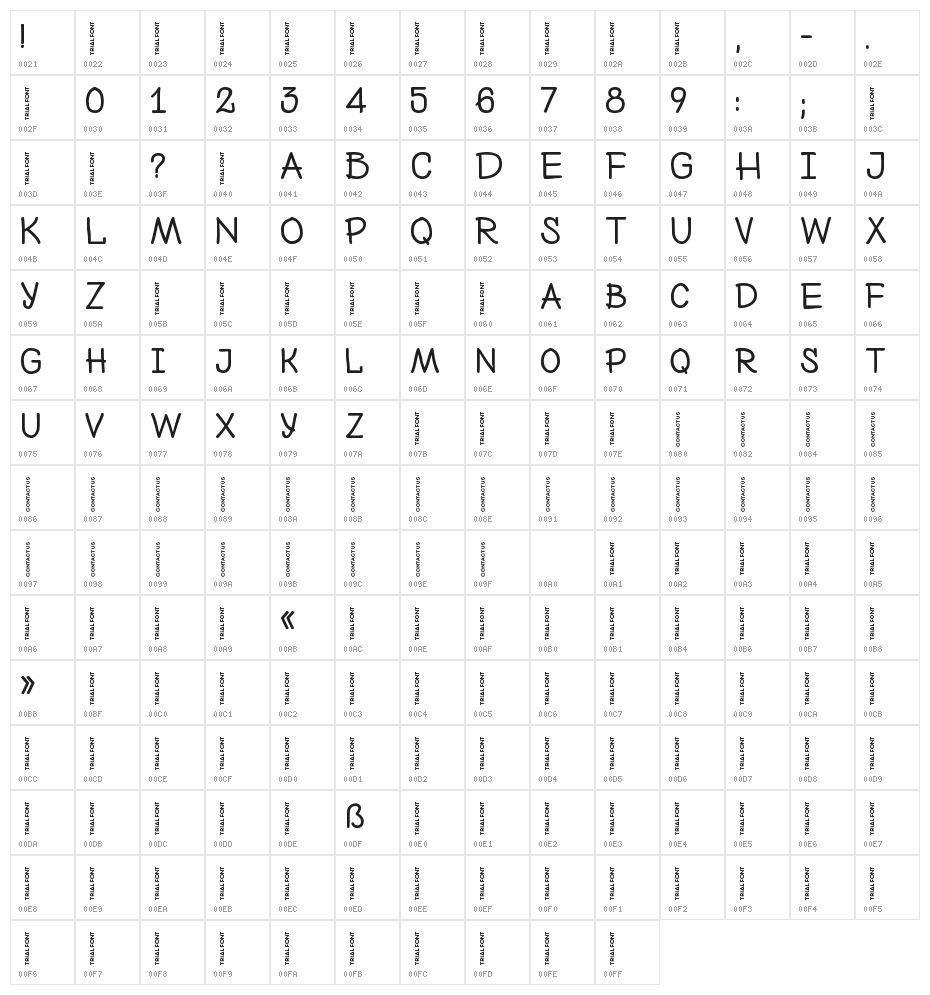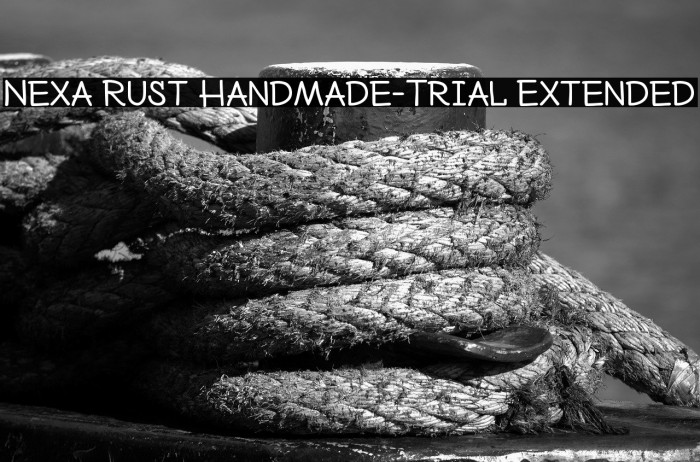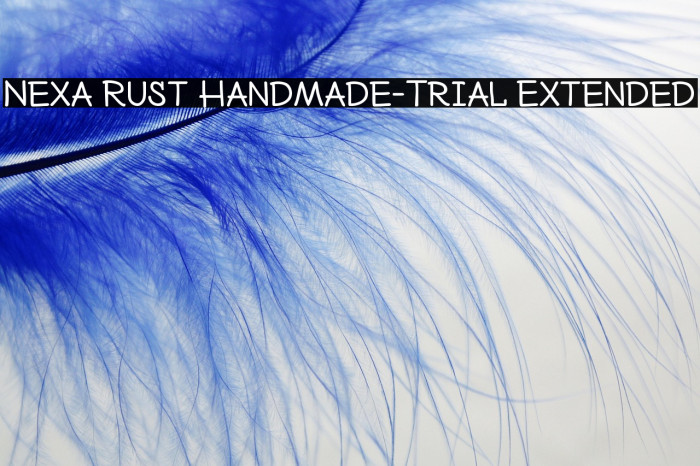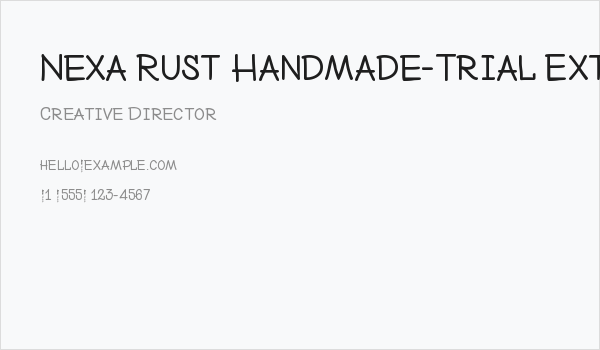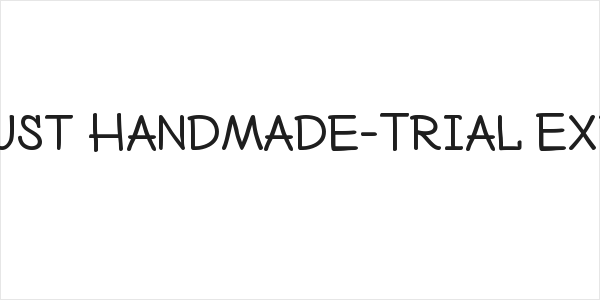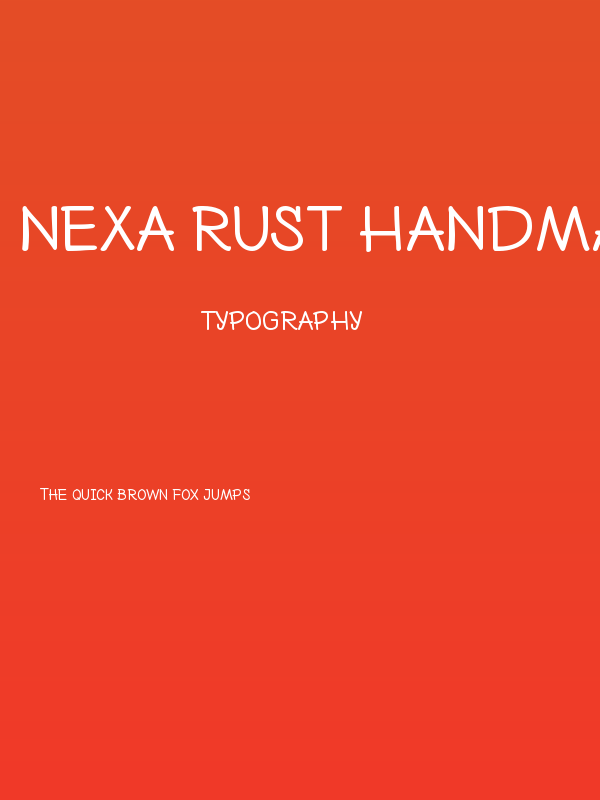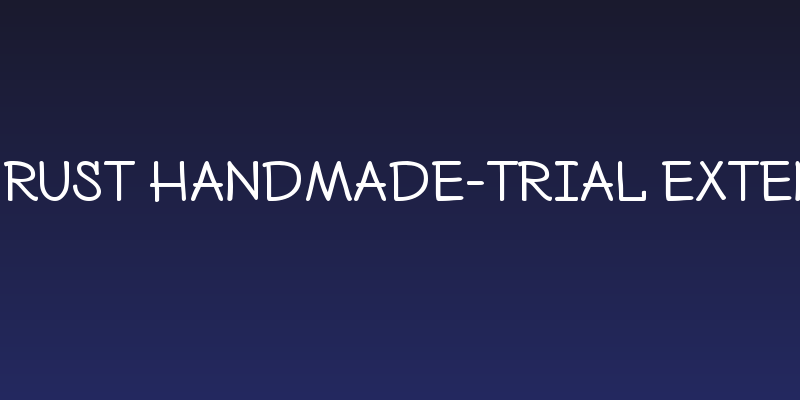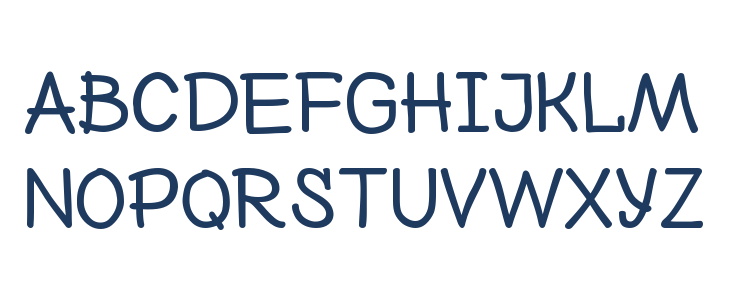
Nexa Rust Handmade-Trial Extended Font
Nexa Rust Handmade-Trial Extended Description
This font exhibits a playful and handcrafted aesthetic, characterized by its irregular and slightly wavy lines that give it a casual and friendly appearance. The uppercase and lowercase letters maintain a consistent style, with rounded edges and a uniform stroke width that suggests a handwritten quality. The numerals and special characters follow the same design principles, ensuring cohesion across all elements. This font's unique charm lies in its imperfect, organic shapes that evoke a sense of warmth and approachability.
| Overall Style | Casual, Handcrafted |
| Proposed Projects | Ideal for projects that require a personal touch, such as greeting cards, invitations, children's books, or branding for artisanal products. |